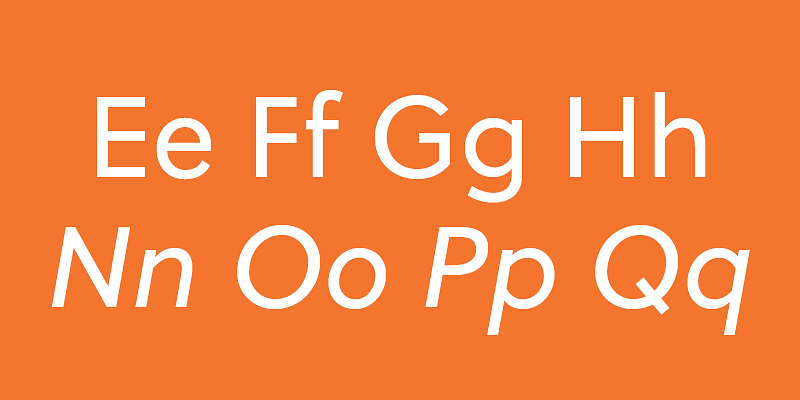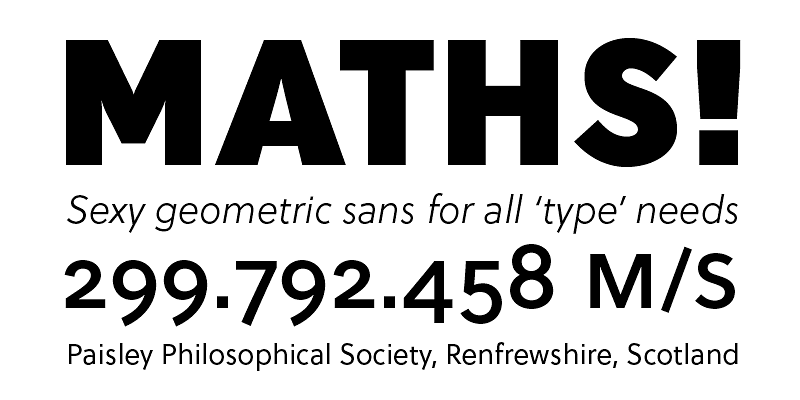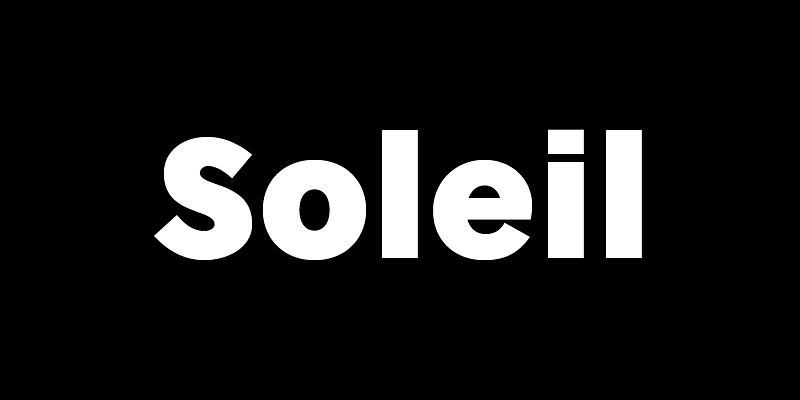
A tranquil and fresh geometric sans font family for clear text and headlines.
Soleil’s letterforms are the result of a thoughtful design process that brings together simplicity with lively, fluid rhythm, as opposed to rote mathematics. Created for a wayfinding and signage system during a renovation of a 1950s modernist building – the labour office in Vienna – Homola’s design is subtle and refined, and based on a process that involved countless hand sketches before digitisation. Its design includes generous mirrored counters, tall ascenders, slow curves that stress a purposeful mechanic construction and a large x-height for legibility.
Soleil fits a wide range of potential applications: signage and wayfinding systems being the most obvious based on its provenance; book and magazine design; branding and corporate identity programmes.